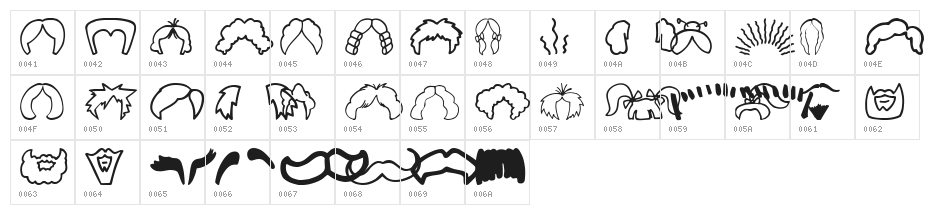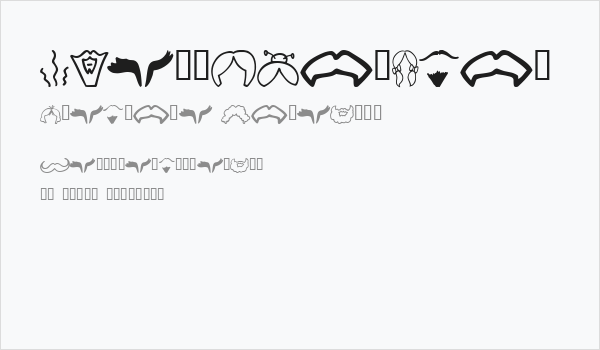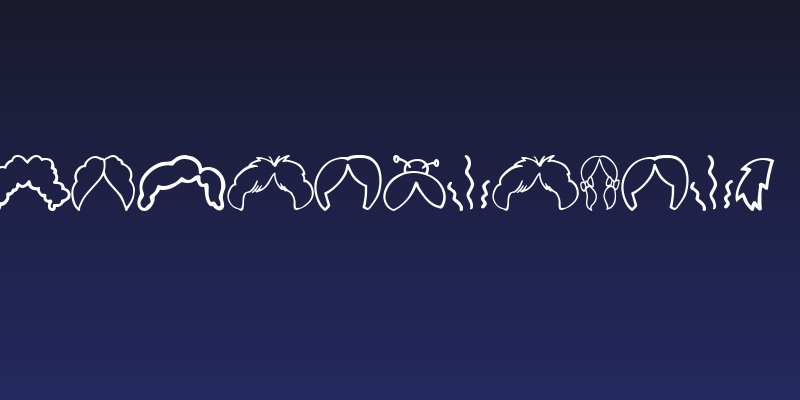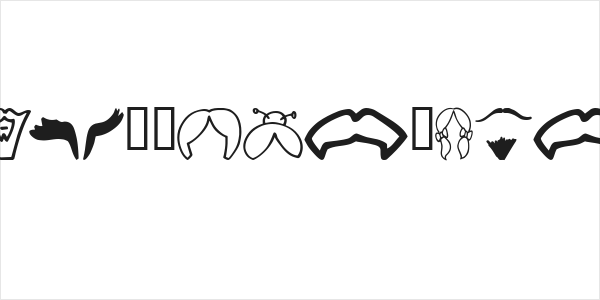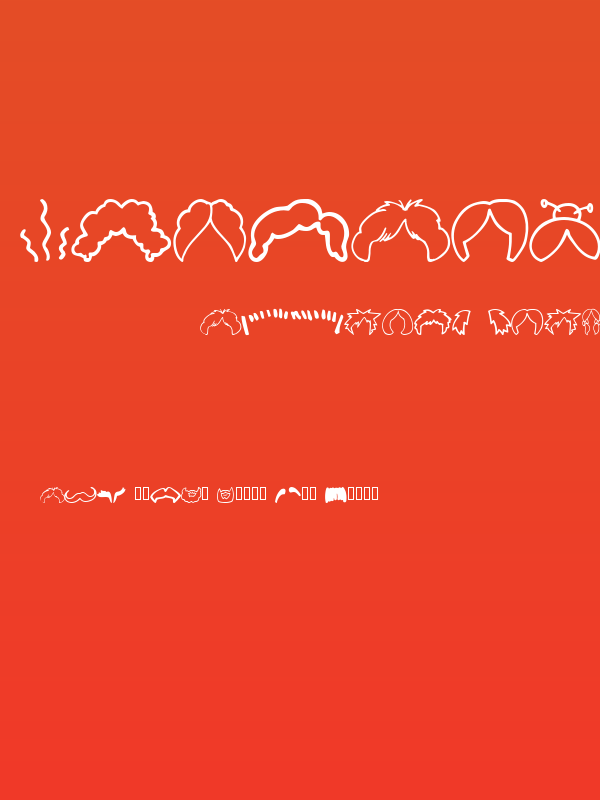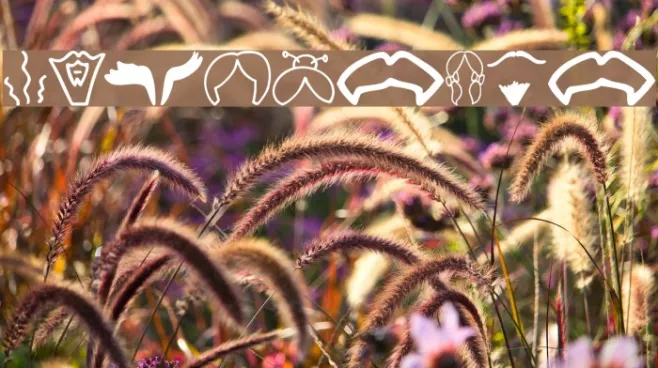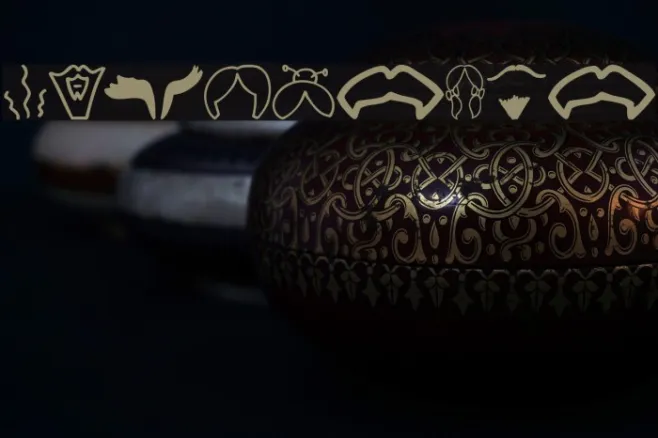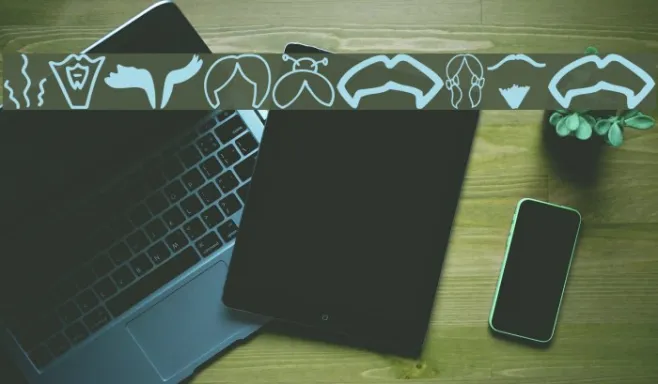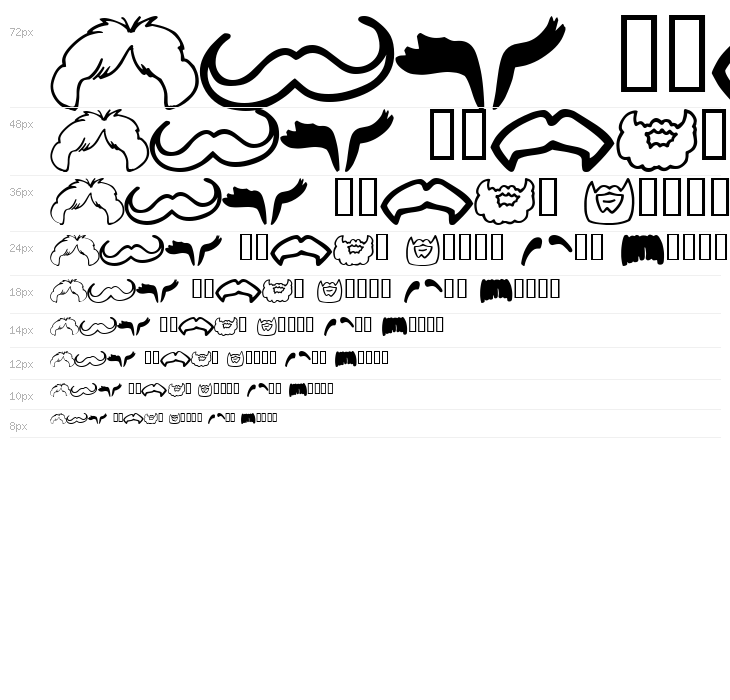
IdentAKitHair Font
IdentAKitHair Description
| Overall Style | Playful, Whimsical, Cartoonish |
| Use Case | Icons, Decorative elements, Themed graphics |
| Proposed Projects | Character design, party invitations, children's books, avatars, playful branding, educational materials. |